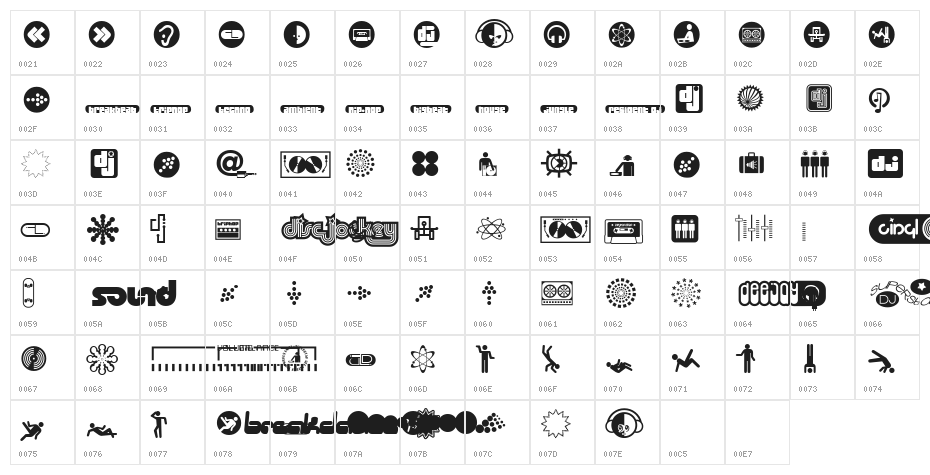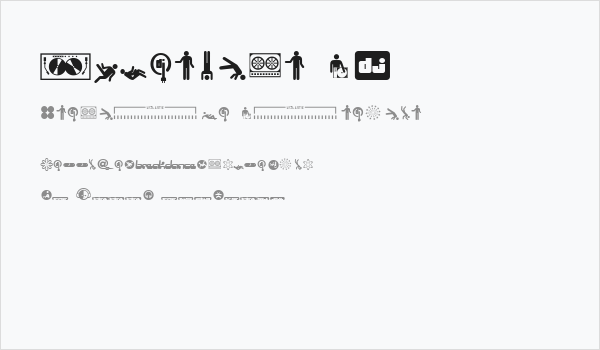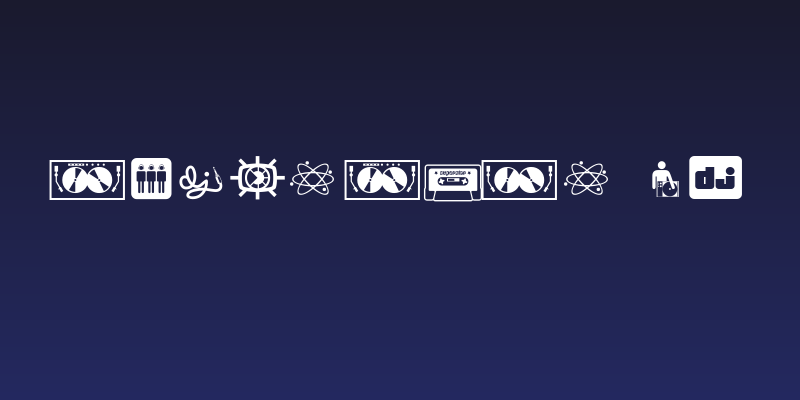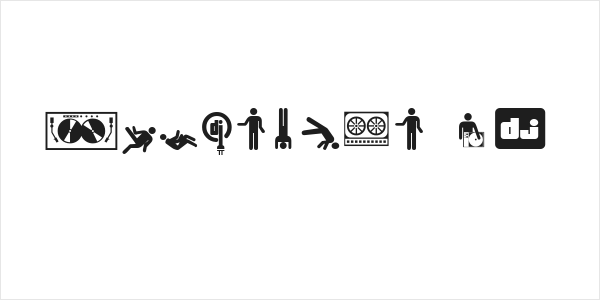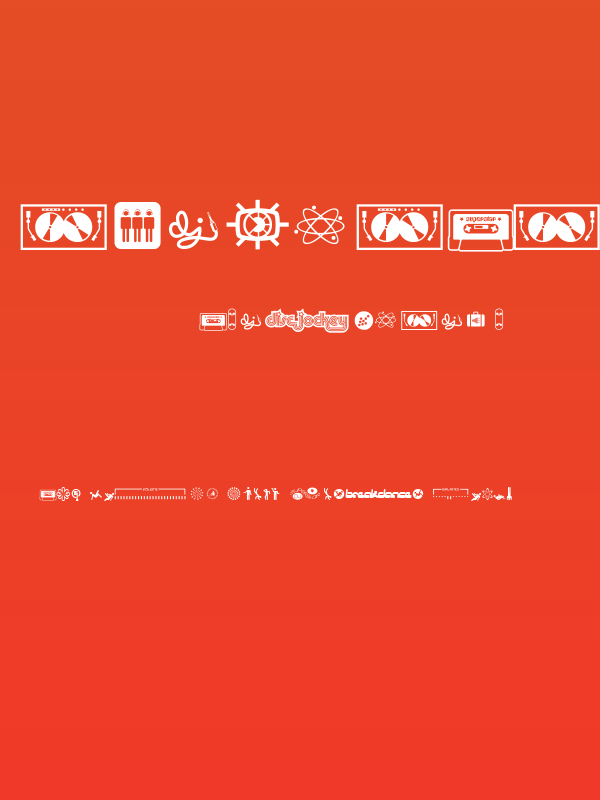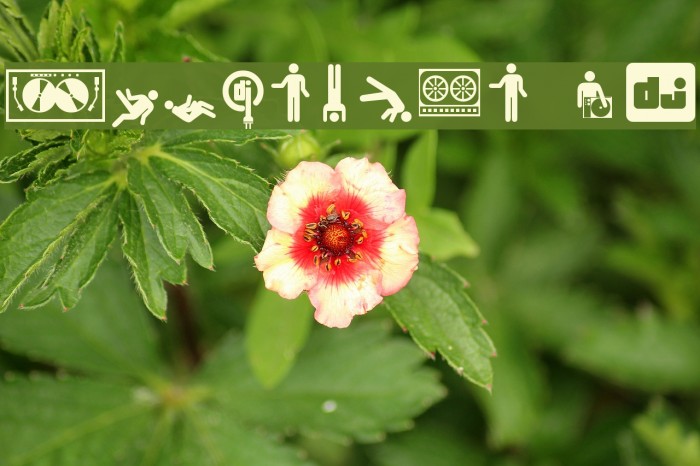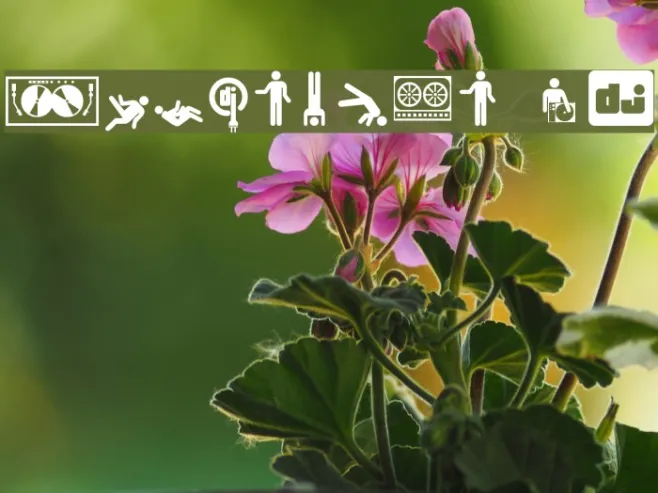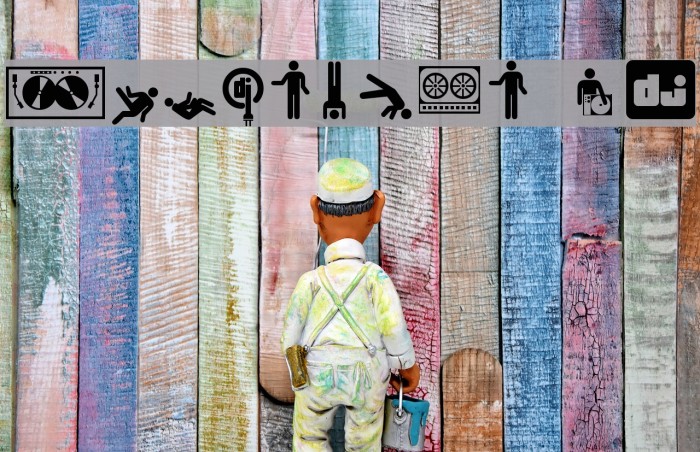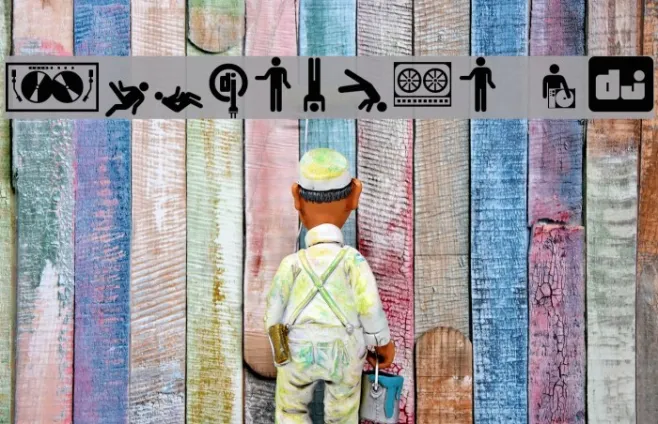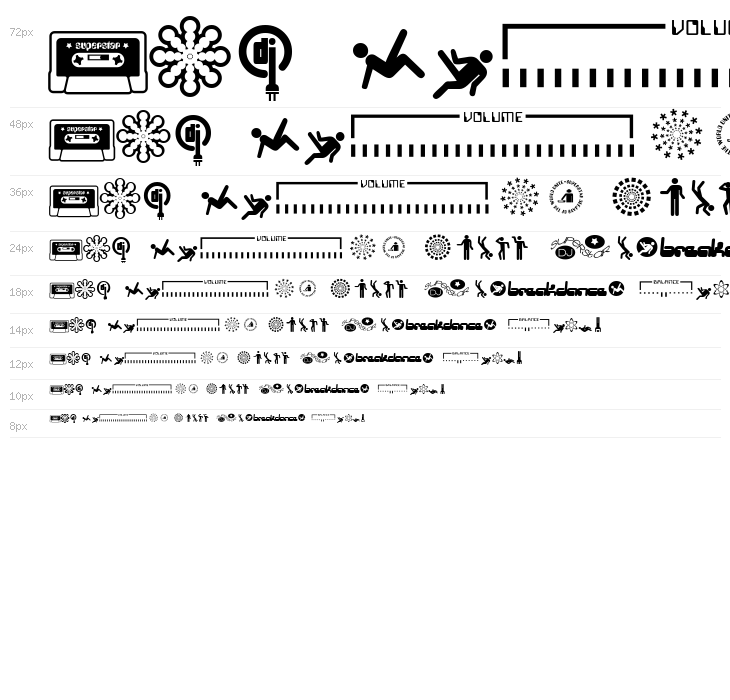
Superstar DJ Font
Superstar DJ Description
This font is a decorative and playful collection of symbols and icons that capture the essence of DJ culture and music. It includes a variety of elements such as turntables, headphones, musical notes, and abstract shapes, all designed with a bold and dynamic style. The characters are highly stylized, with a mix of solid and outlined forms, creating a vibrant and energetic visual impact. The font's unique design makes it ideal for projects that aim to convey a sense of fun, creativity, and movement, particularly in contexts related to music and entertainment.
| Use Case | Logos, Posters, Branding |
| Proposed Projects | Ideal for music event posters, DJ branding, album covers, and party invitations. |